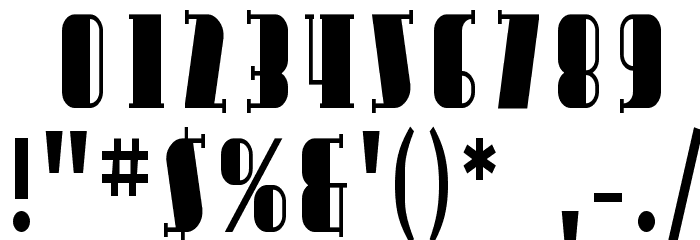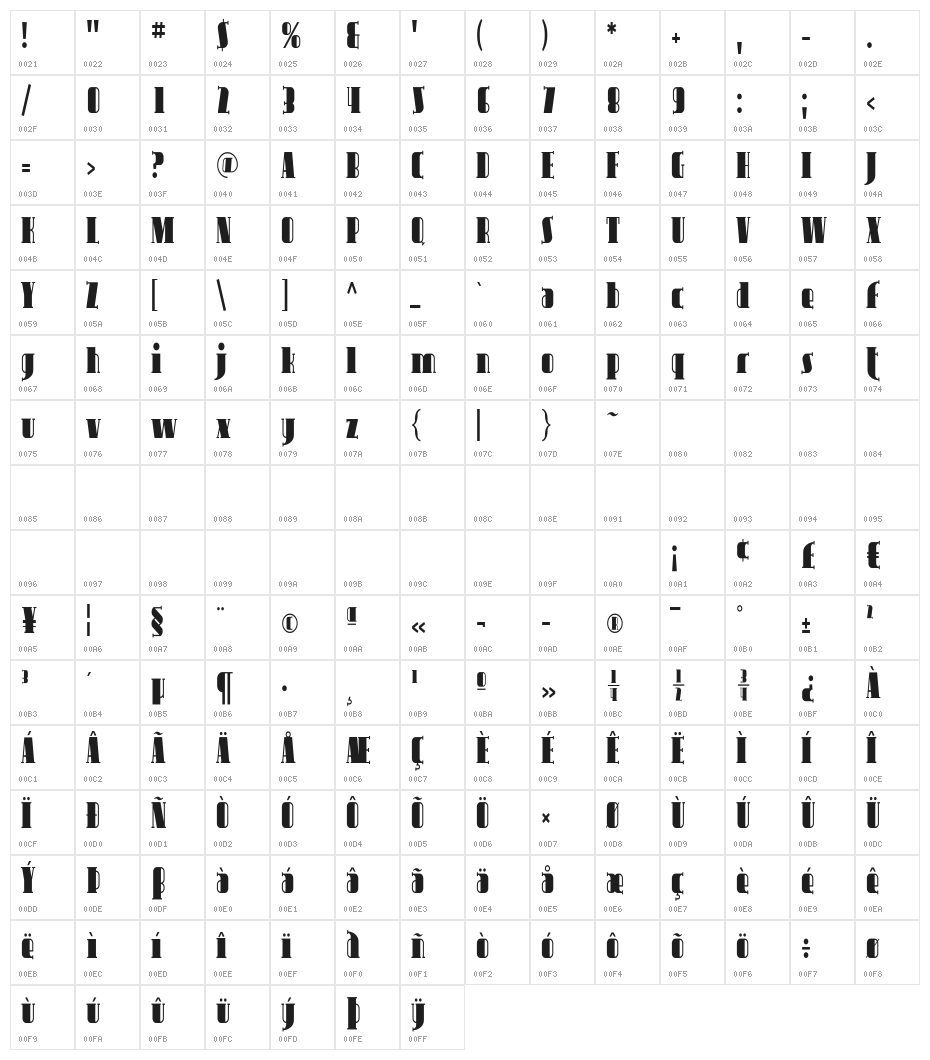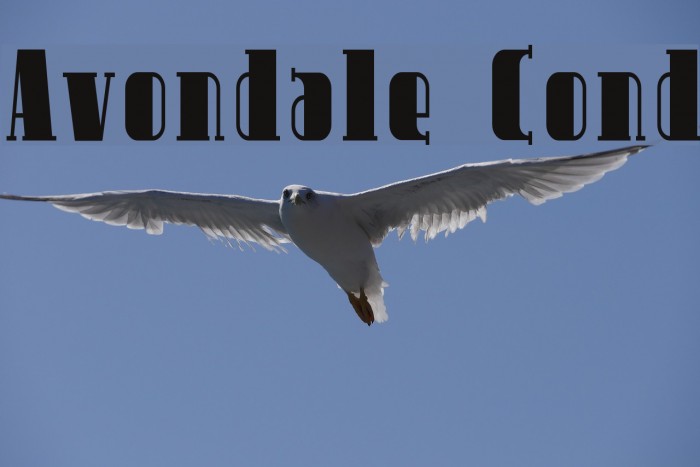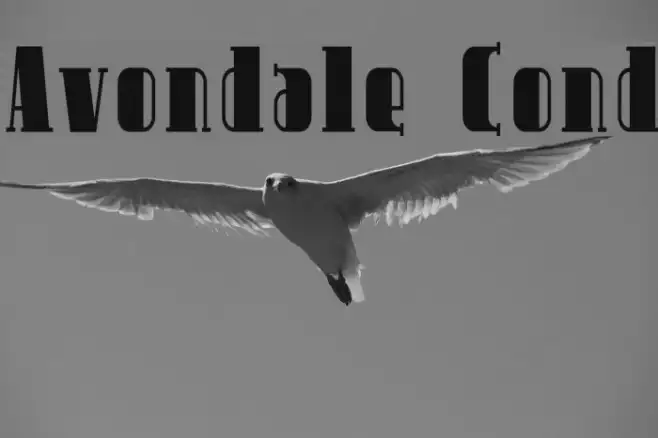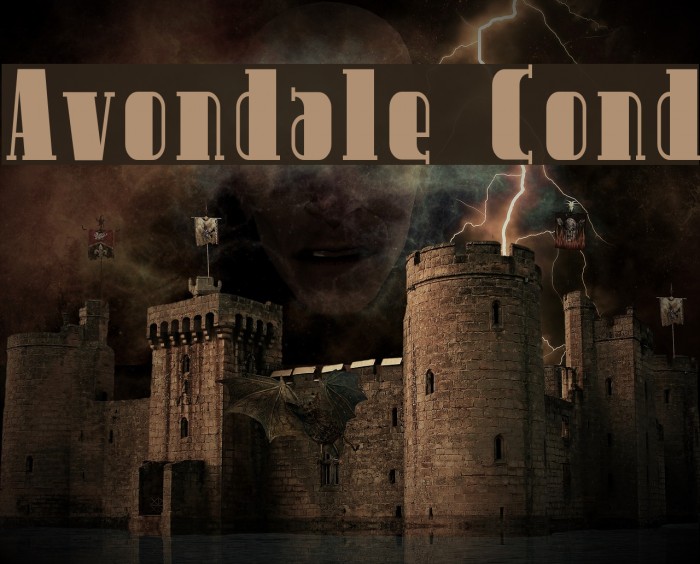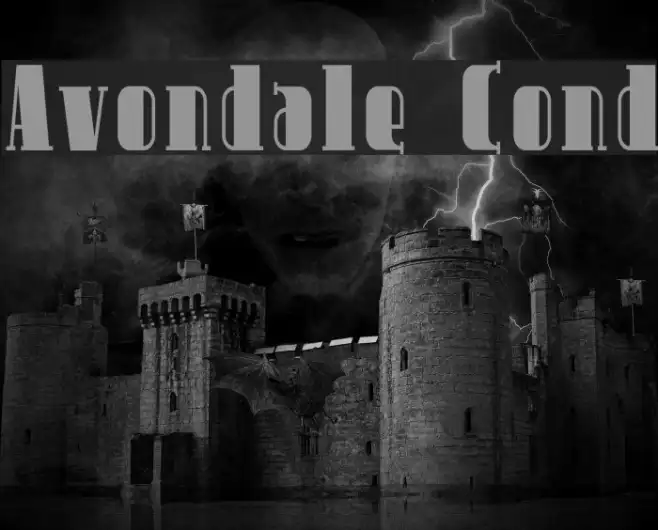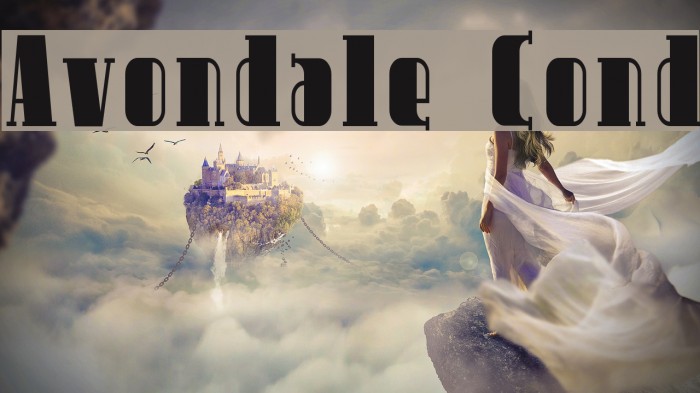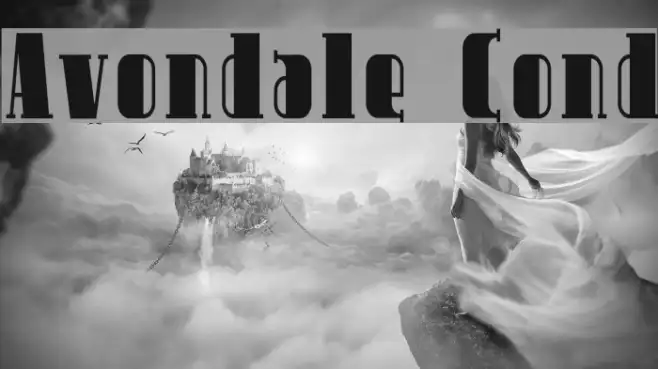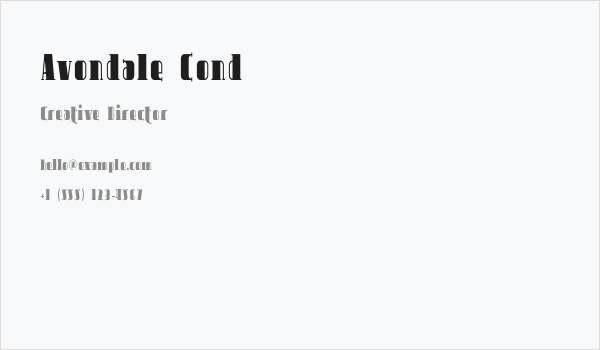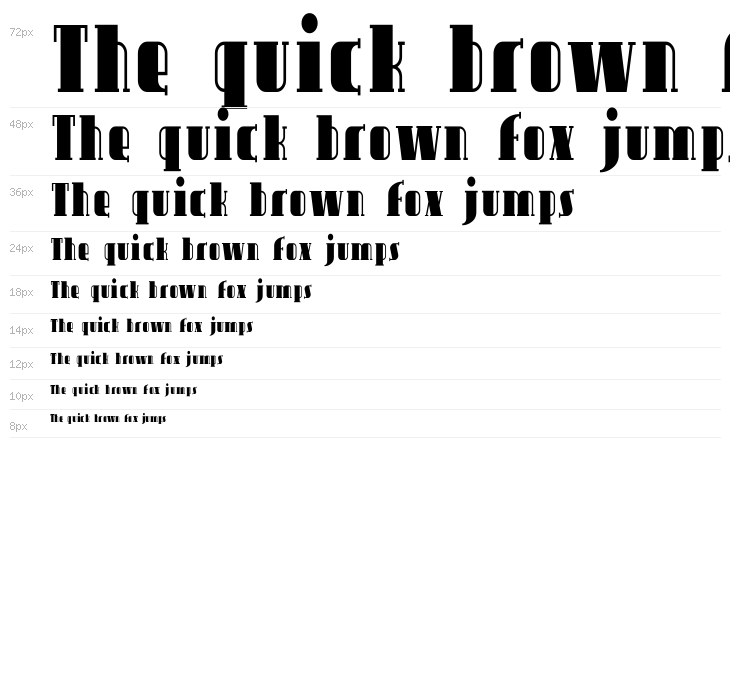
Avondale Cond Font
Avondale Cond Description
This font features a bold and striking design with a condensed width, making it ideal for impactful headlines and titles. The characters are tall and narrow, with a strong vertical emphasis and minimal spacing between them. The high contrast between thick and thin strokes adds a dramatic flair, while the sharp serifs and clean lines give it a modern yet classic appearance. The uppercase letters are particularly prominent, with a commanding presence that draws attention. The lowercase letters maintain the same stylistic elements, ensuring consistency across text. Numbers and special characters are equally bold, enhancing the font's versatility for various design needs.
| Proposed Projects | Ideal for magazine covers, posters, branding materials, and any project requiring a strong visual impact. |